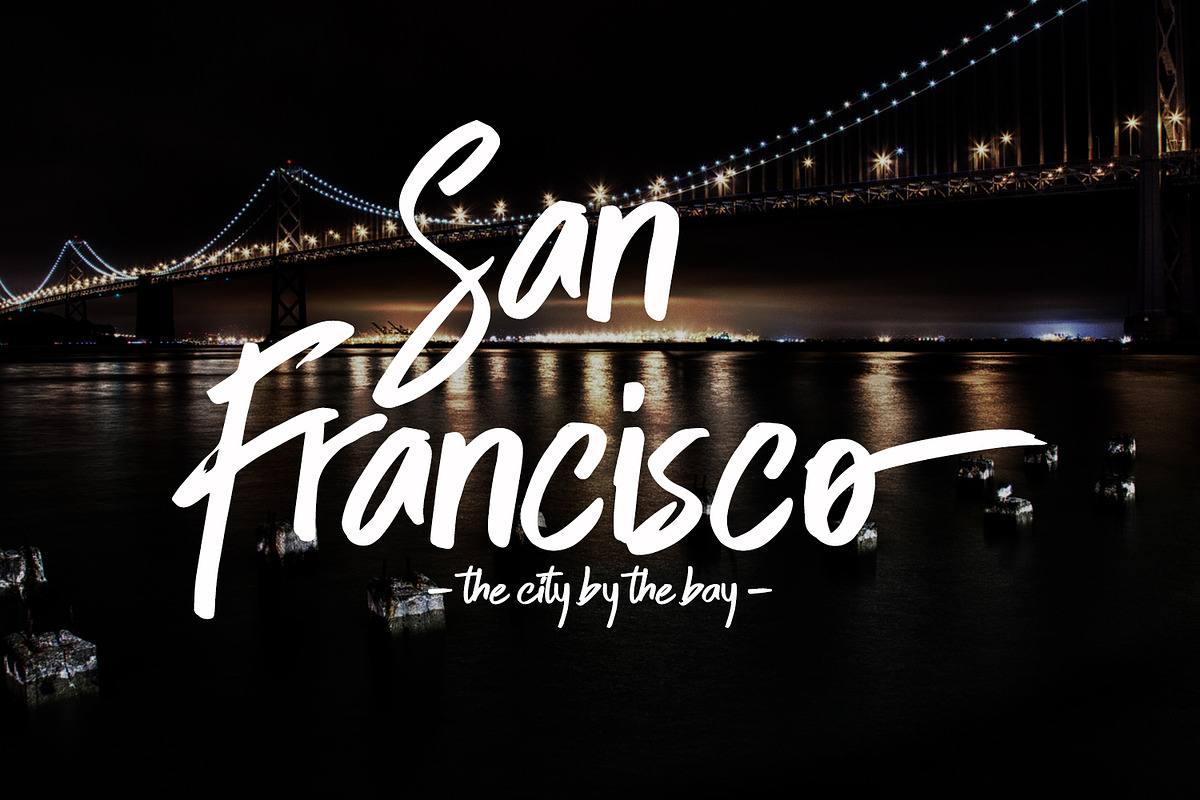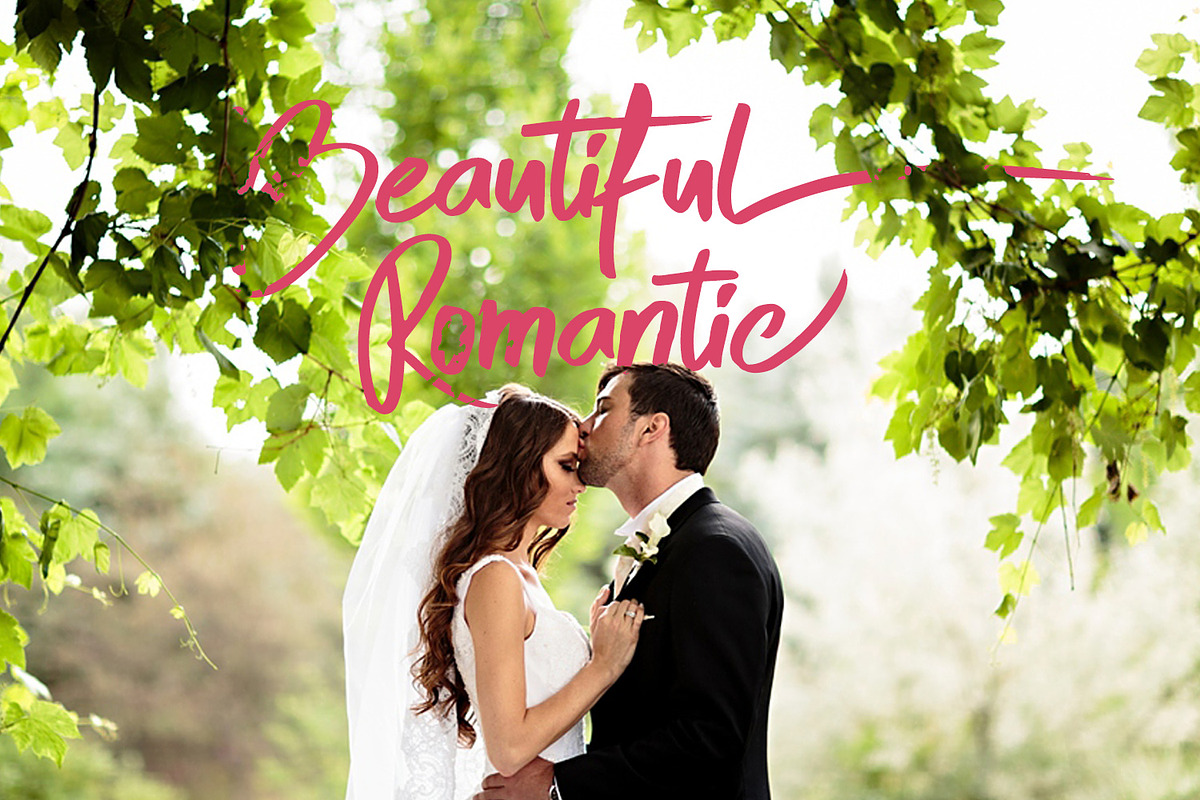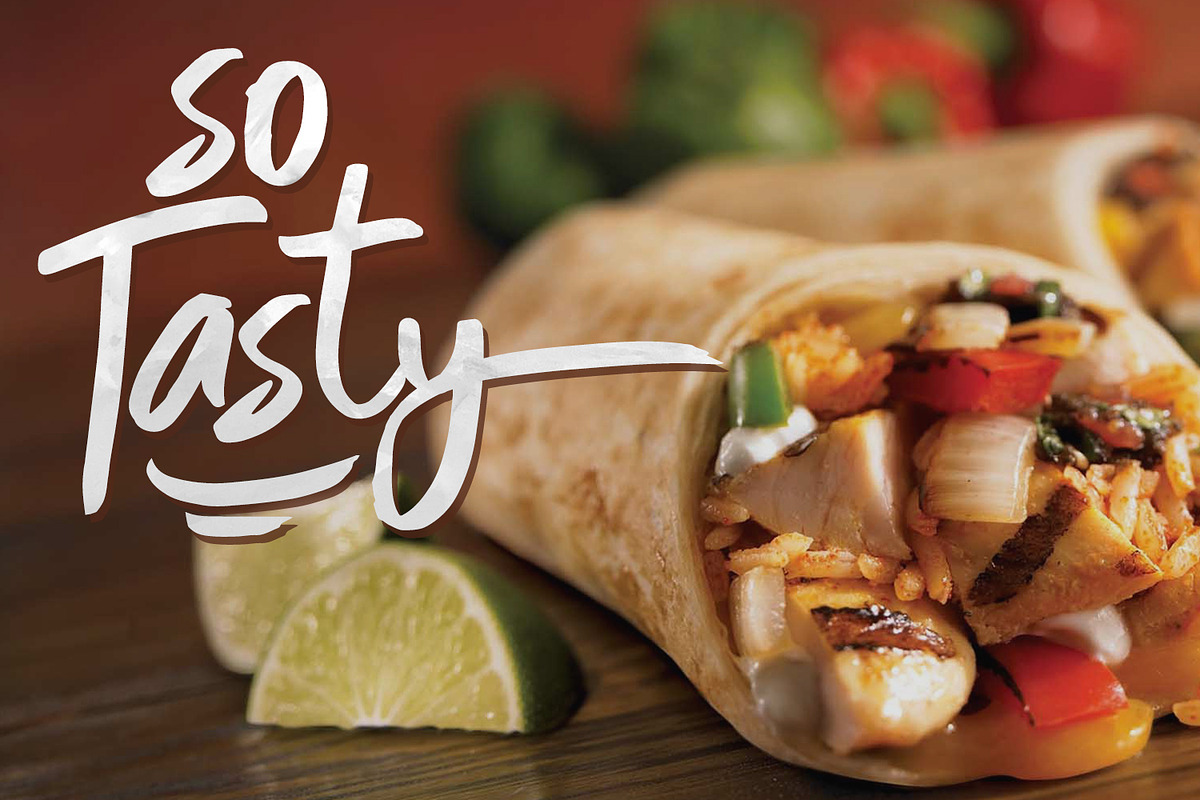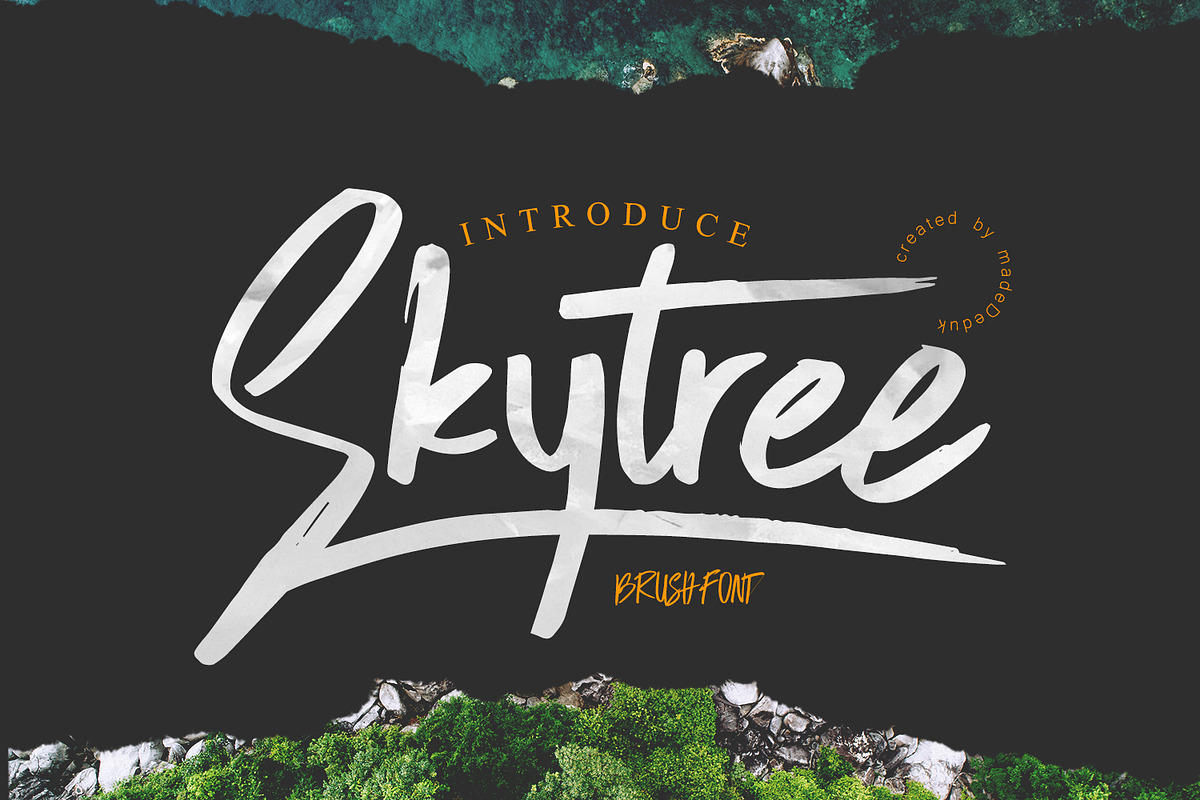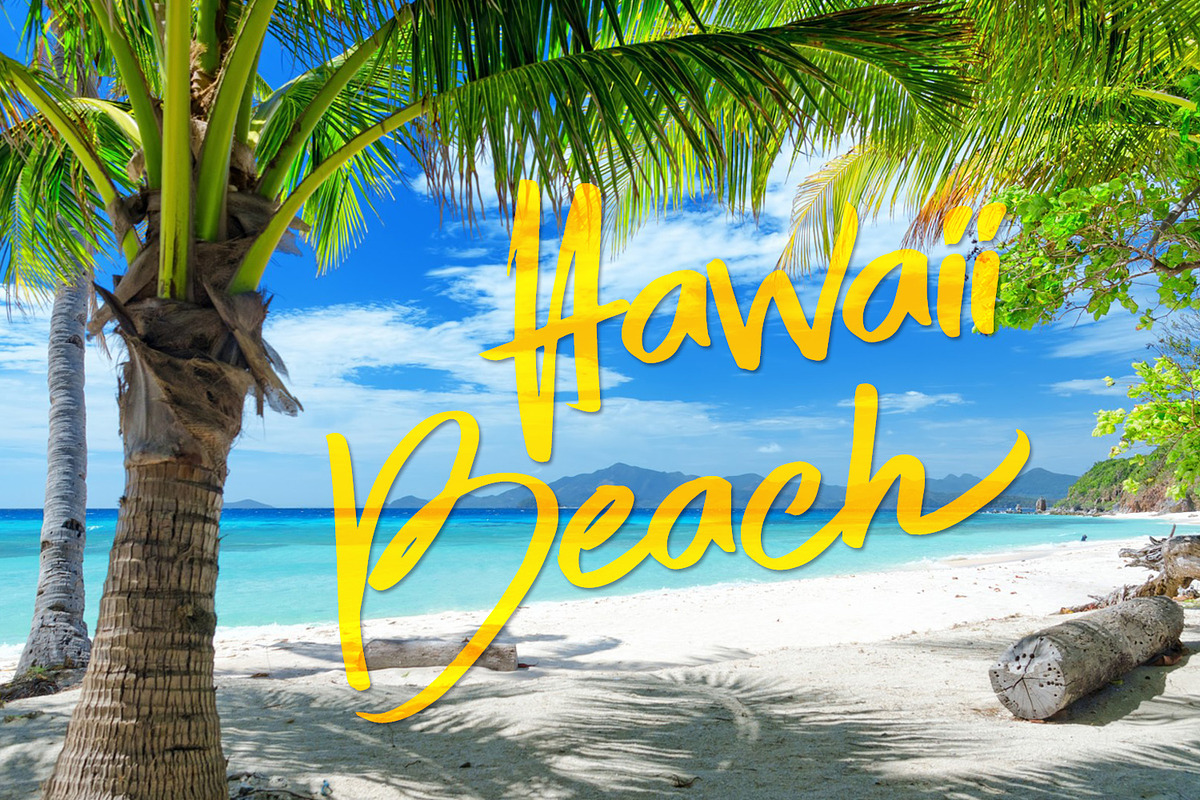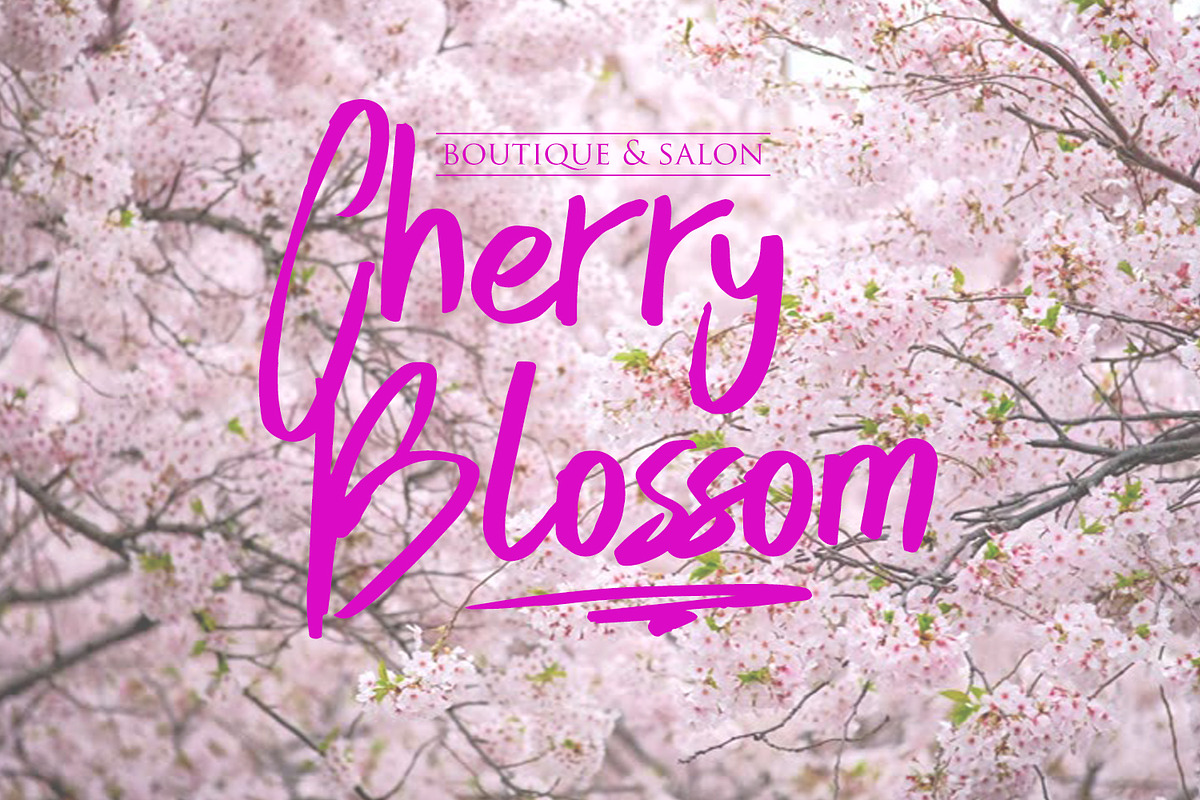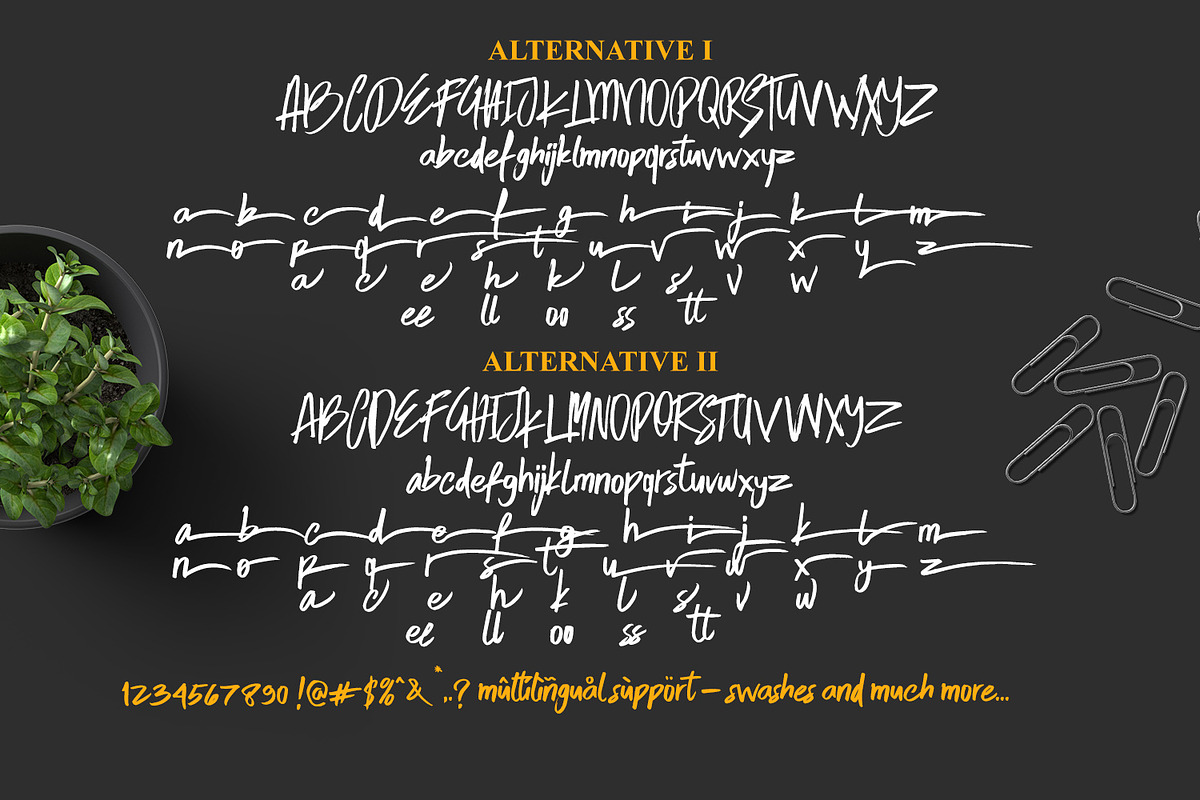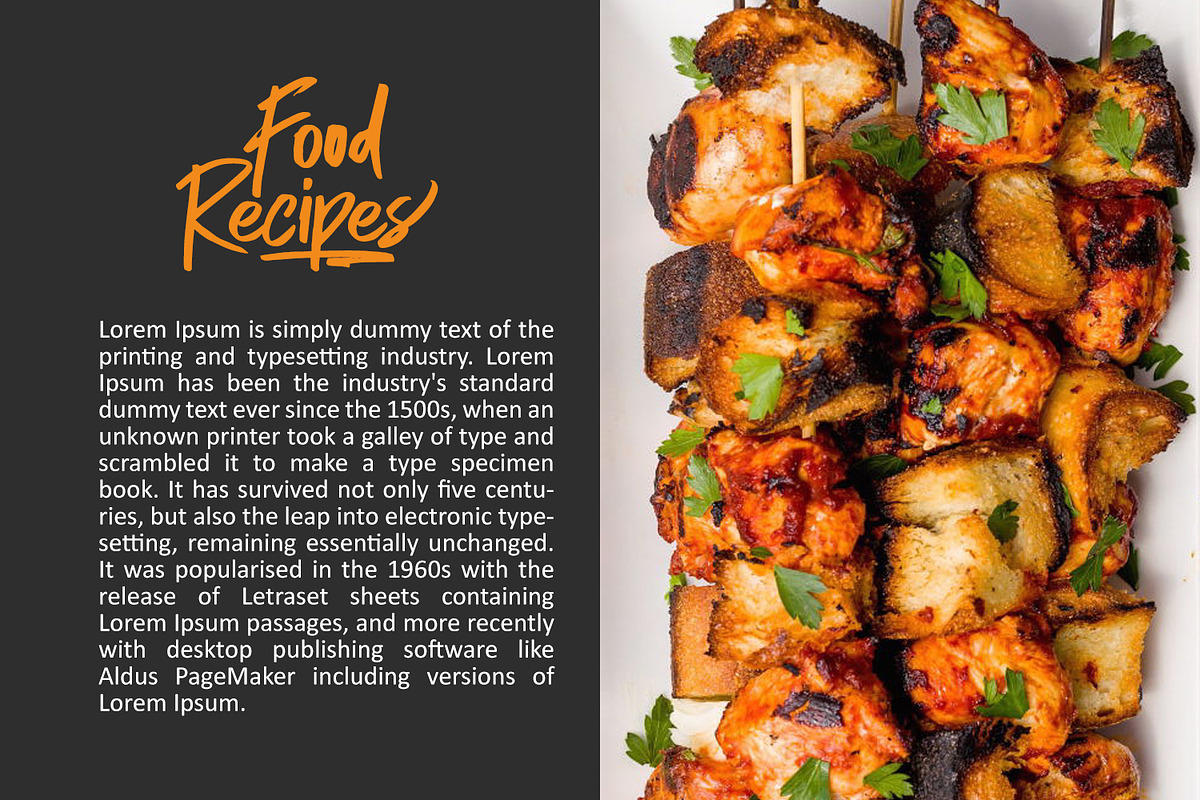
Skytree Script Brush Font
Really excited to introduce Skytree is a modern brush script! Skytree perfect for all your designs project, event and more.
Numerals & Punctuations (OpenType Standard)
Accents (Multilingual characters)
- Feature Character Set A-Z Numerals & Punctuations (OpenType Standard) Accents (Multilingual characters) Stylistic Alternates ligature If you